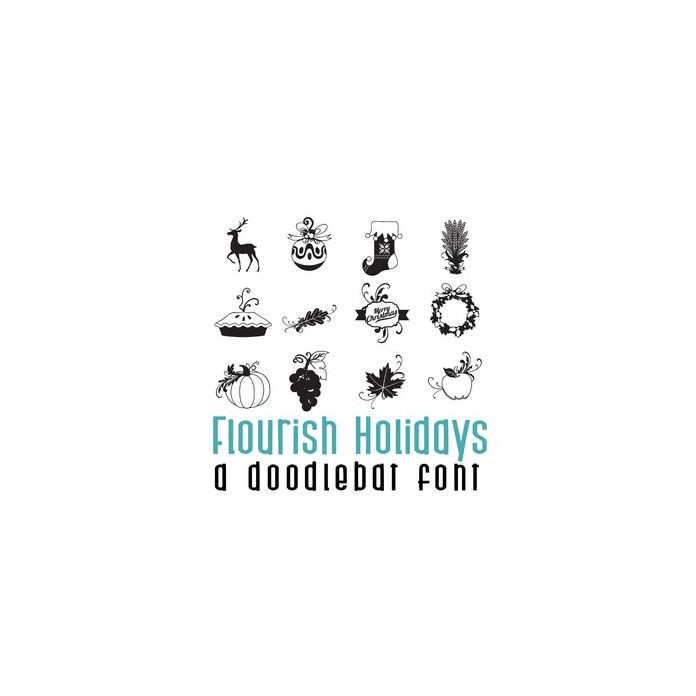
This beautiful doodlebat font features 26 beautiful Christmas and Thanksgiving flourish images perfect for cards, crafts, gifts, scrapbook pages, planner stickers, and more!